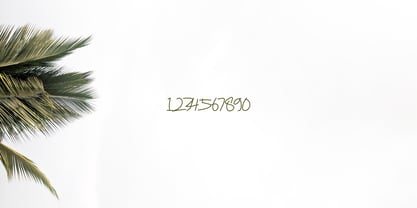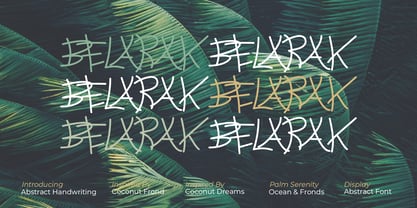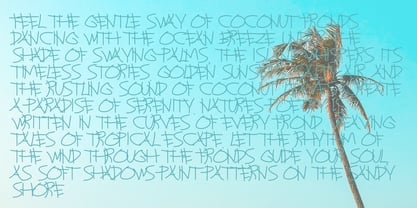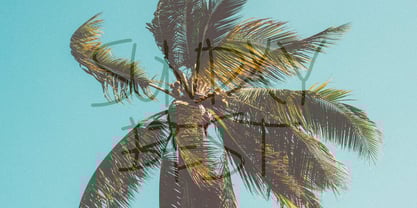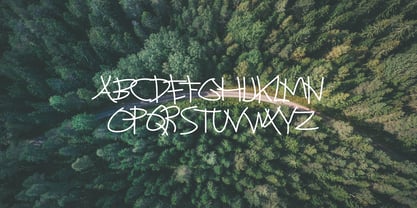
Belarak
by Erifqizefont
The Belarak Font Family was designed by Eka Rifqi Setiawan and published by Erifqizefont. Belarak contains 1 styles. More about this family
Inspired by the slender, elongated stalks of coconut fronds, this font embodies a unique blend of organic flow and structured elegance. Its distinctive forms capture the natural rhythm of these delicate yet resilient elements, creating a design that feels both exotic and modern. With a touch of tropical artistry, this font is perfect for projects that seek to evoke nature’s beauty with a bold and sophisticated twist.
Designers: Eka Rifqi Setiawan
Foundry: Erifqizefont